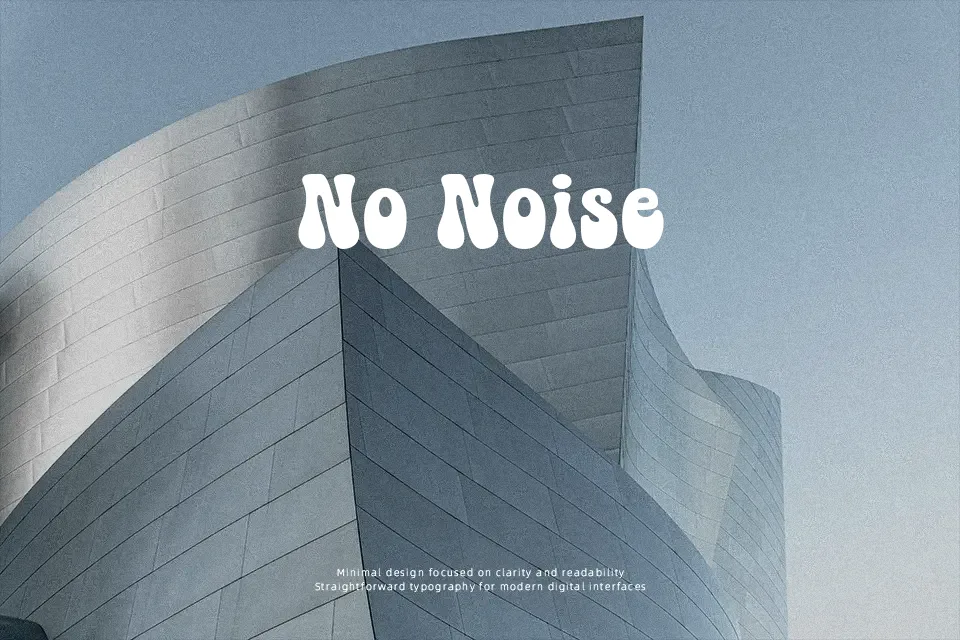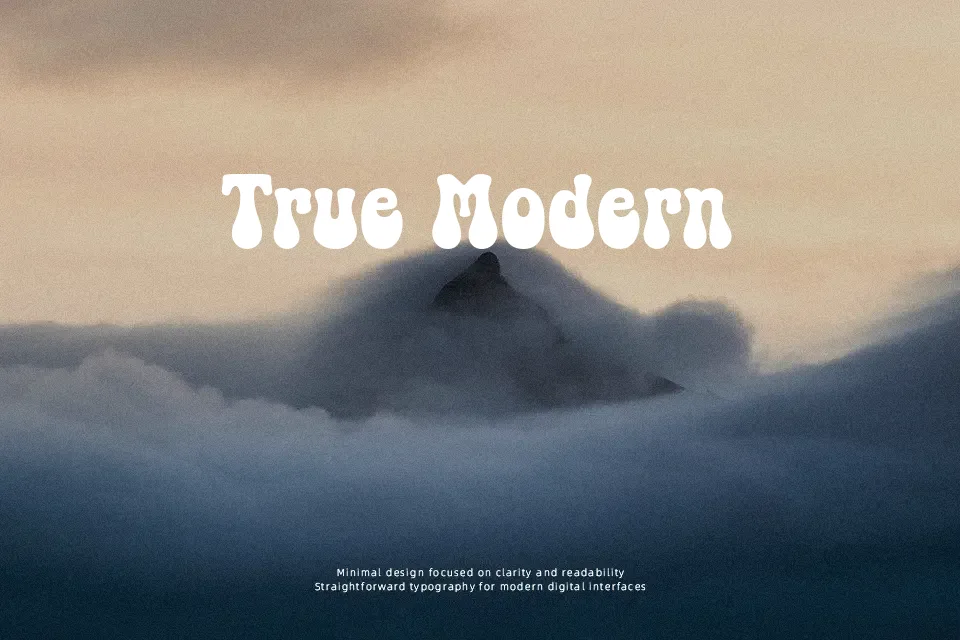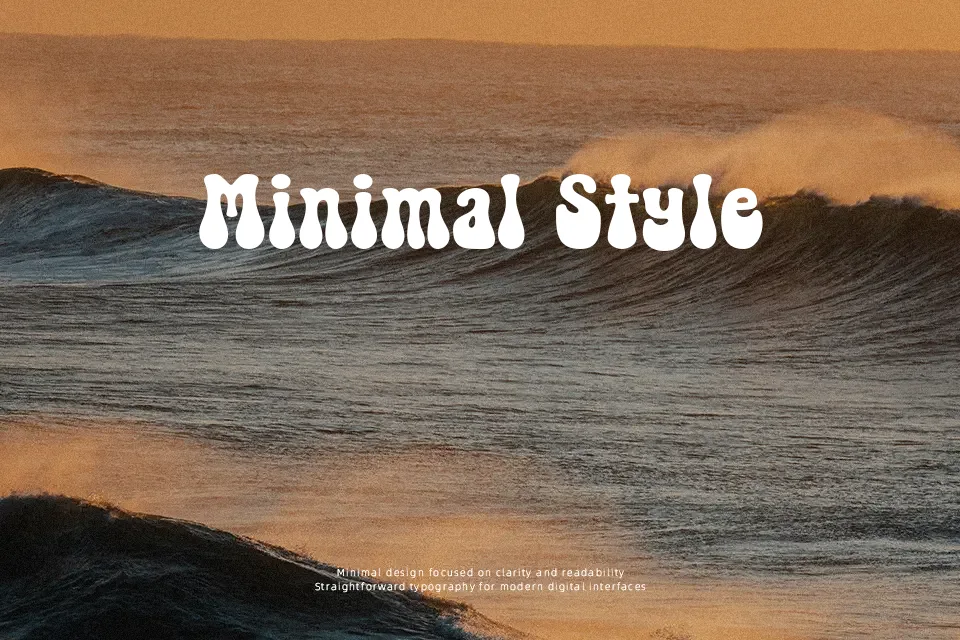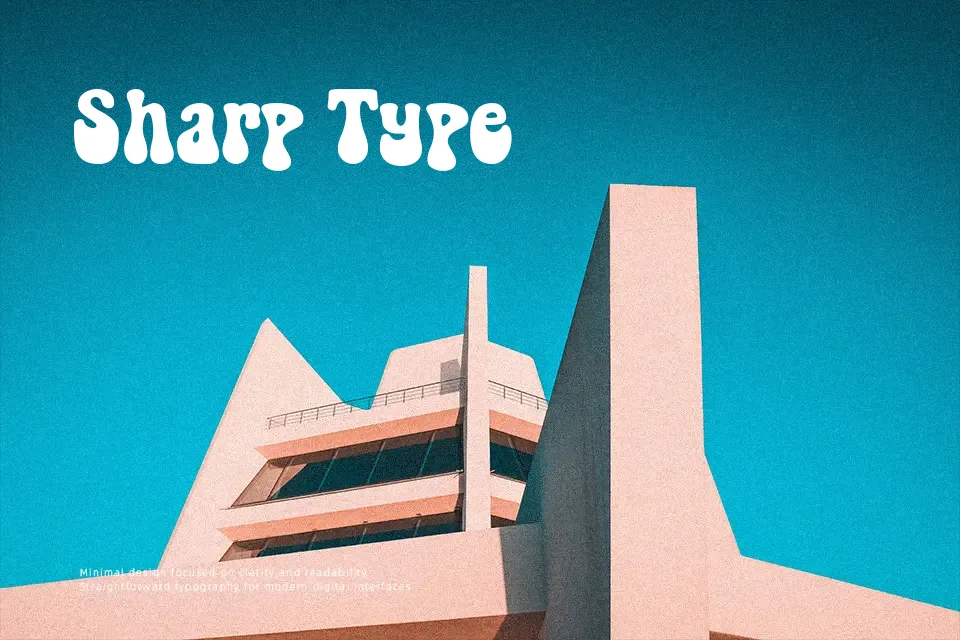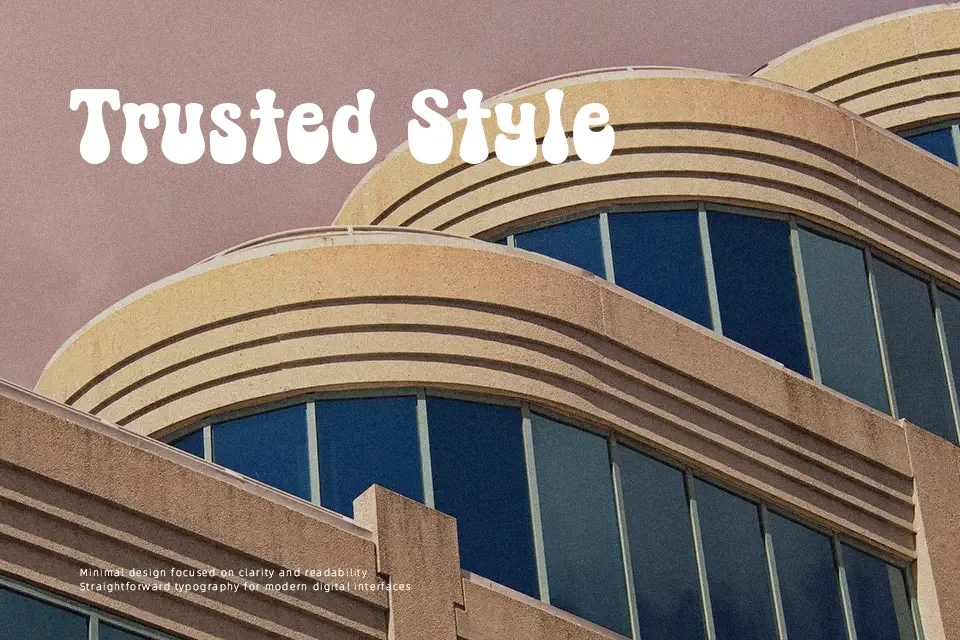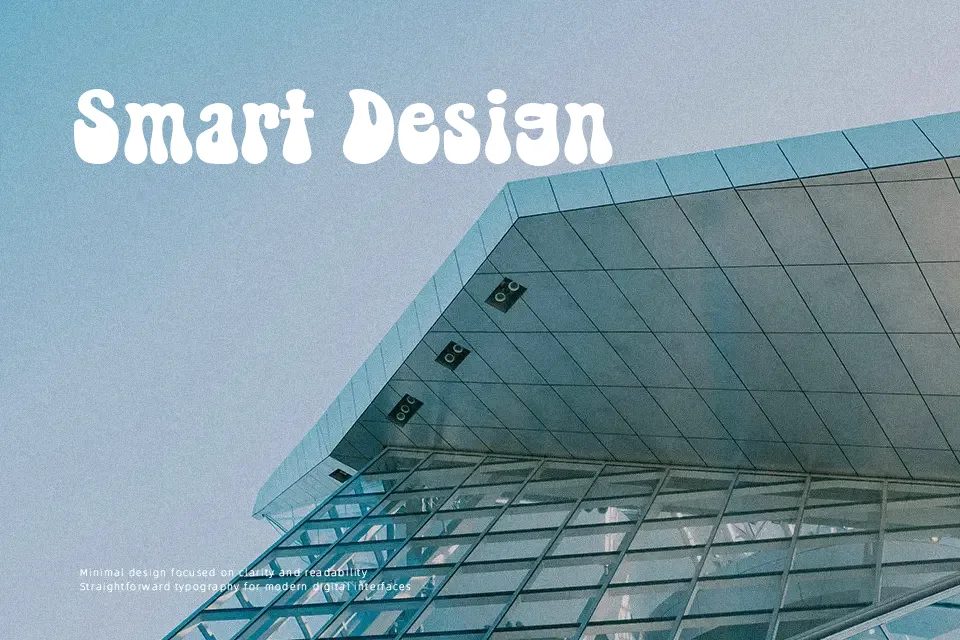
Retro Cookies Font
A short product label or poster headline benefits from Retro Cookies Font, a bold display typeface that embraces a whimsical 1970s aesthetic. The letterforms feature thick, soft strokes with rounded terminals, producing a distinctive bubble-like structure. Its tightly grouped character spacing creates unified word blocks, while the heavy proportions maximize visual impact at large scales. The bold strokes improve visibility in posters and packaging headers, ensuring the playful mood translates effectively across mediums. However, these dense forms reduce comfort during extended reading, making the design significantly less effective when applied to long paragraphs or small captions. This groovy design performs best when restricted to prominent, short-form typographic statements.
Best For: beverage packaging labels, music festival posters, apparel graphics, retro branding
Not Ideal For: long paragraph text, dense editorial layouts, small interface labels
Perfect for branding, headline, and packaging, with a bold and decorative style.